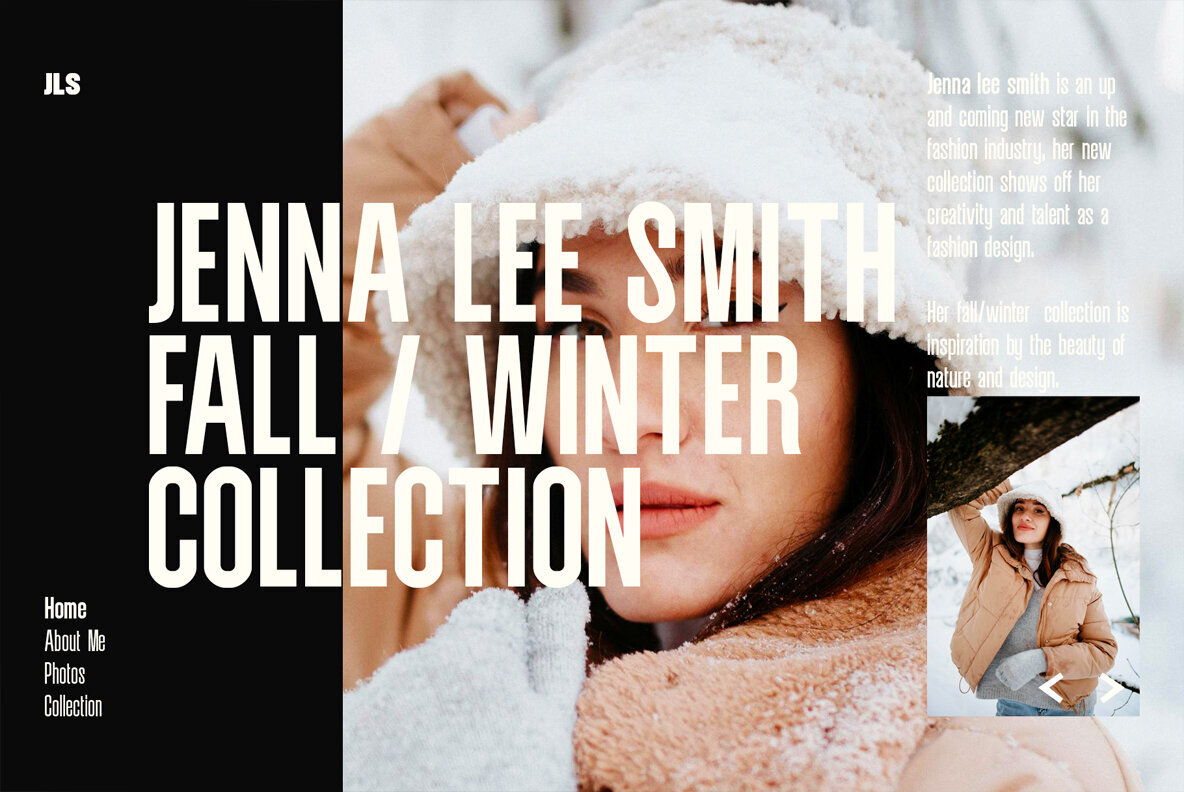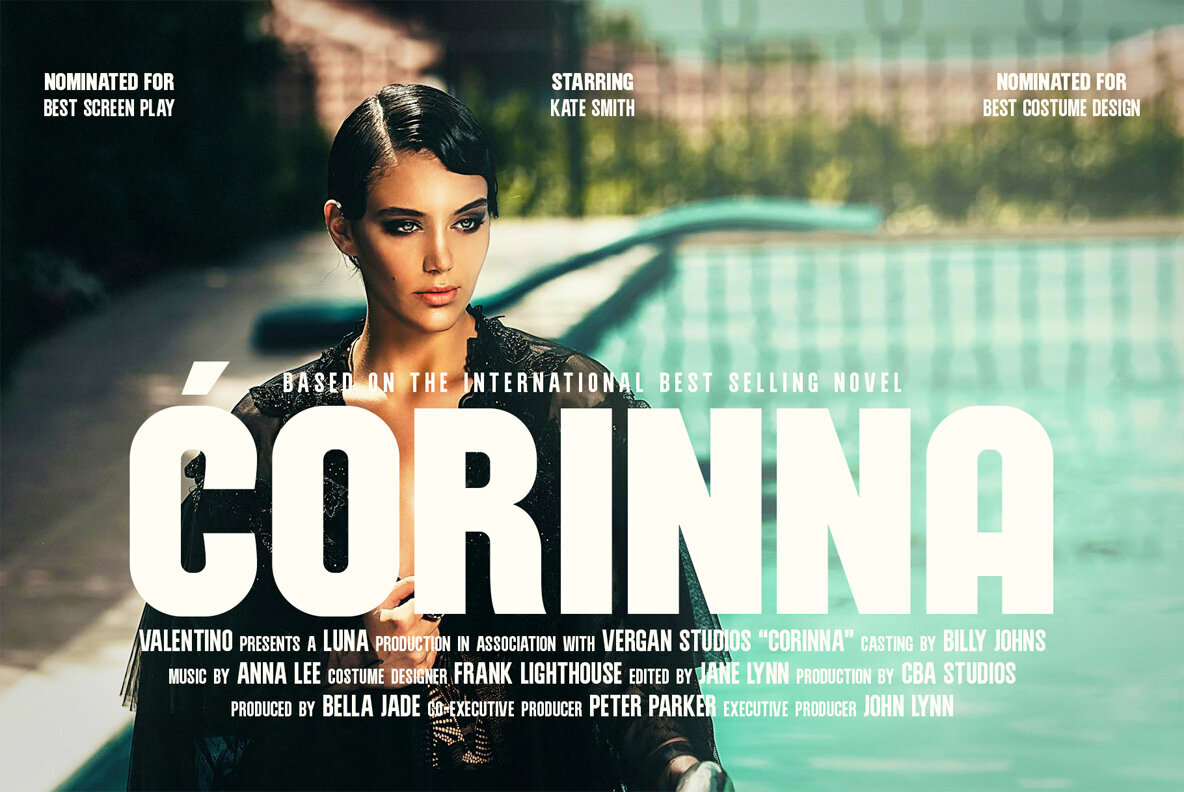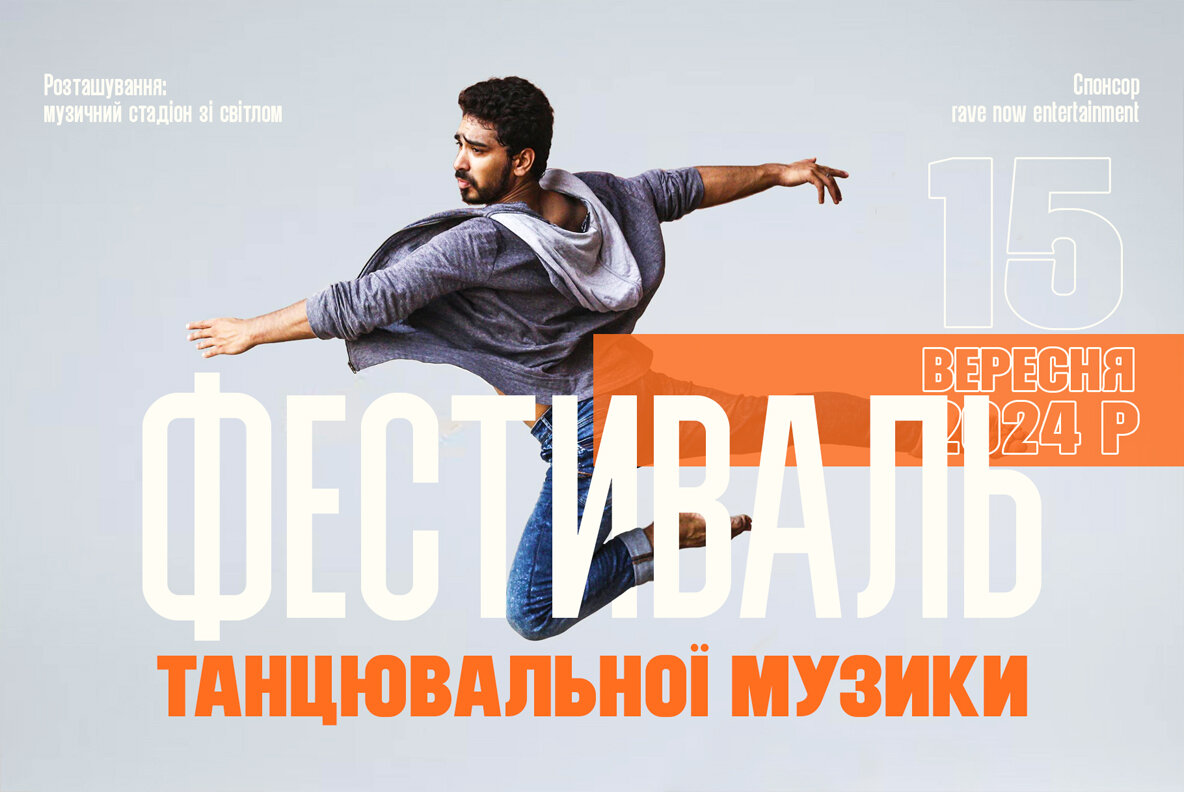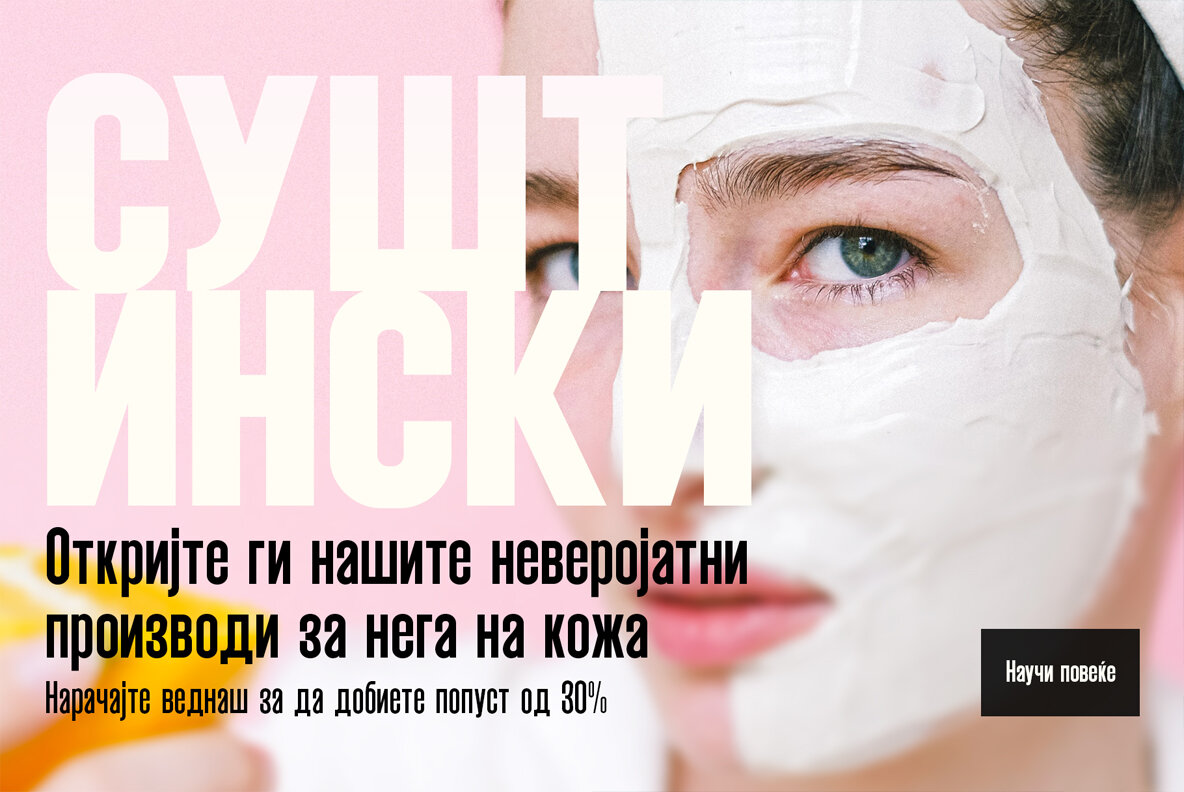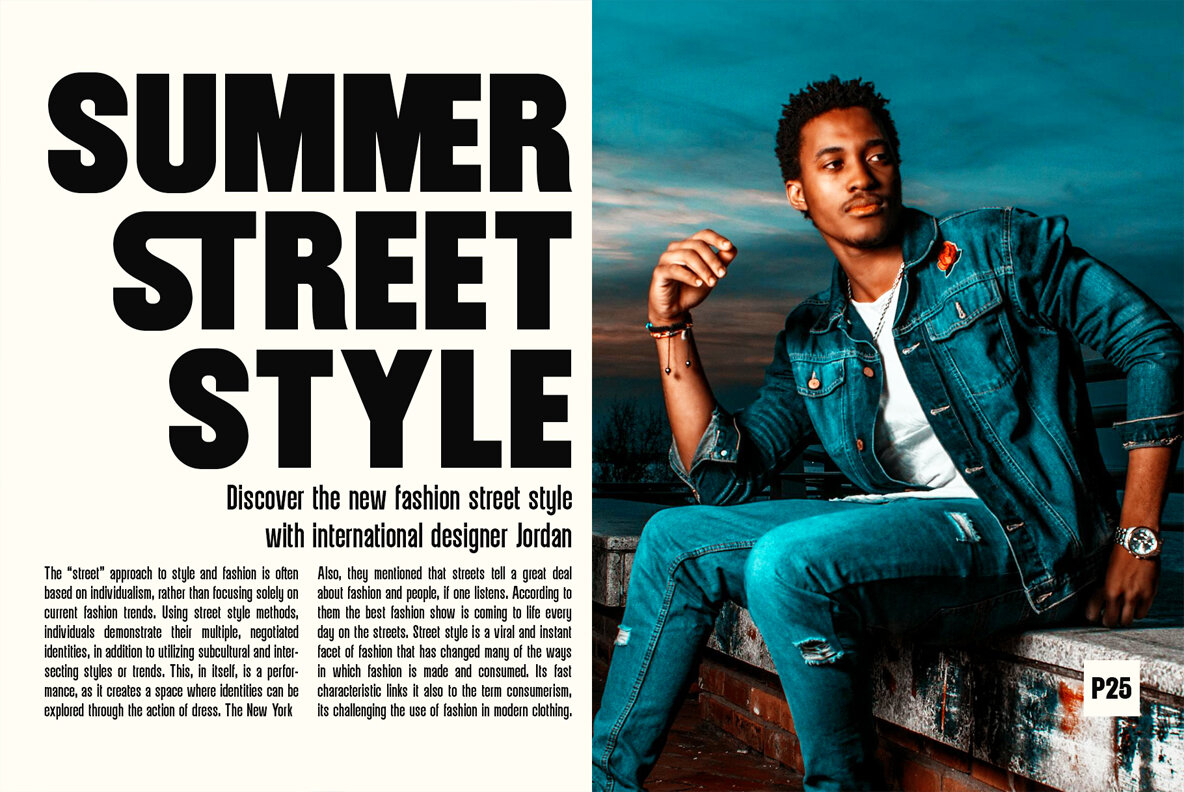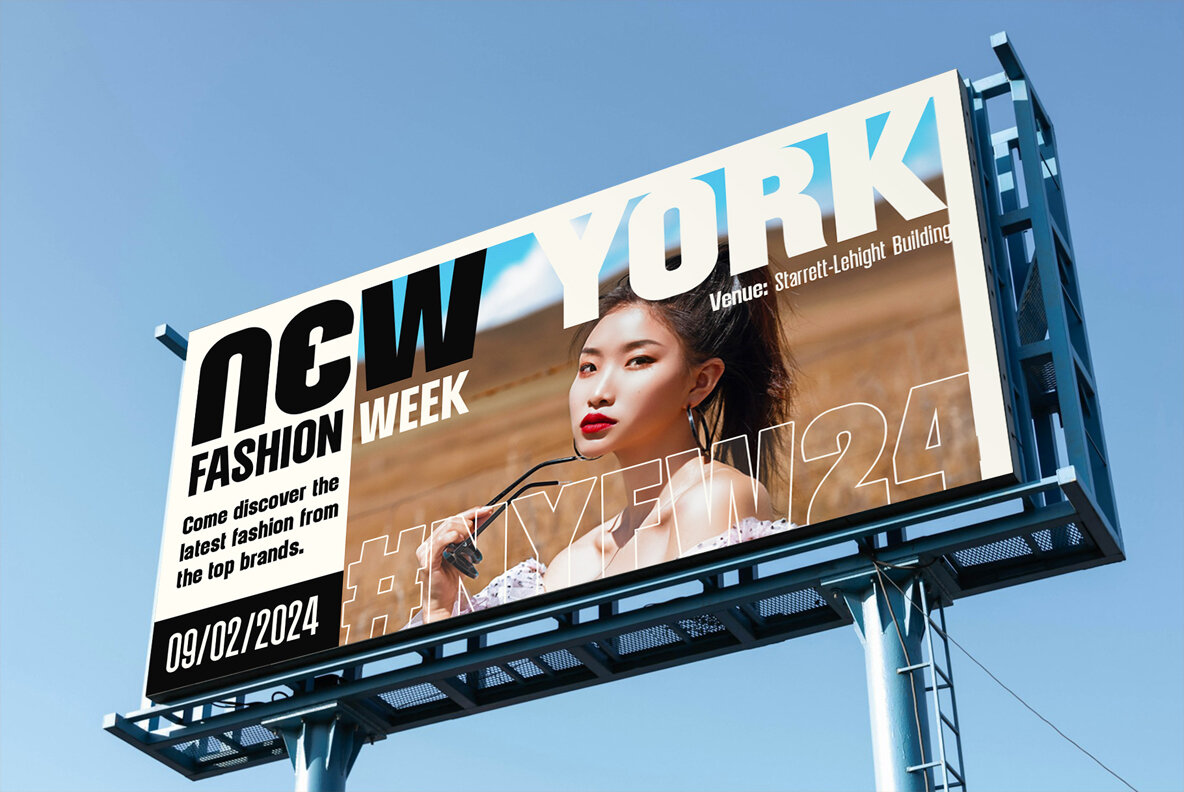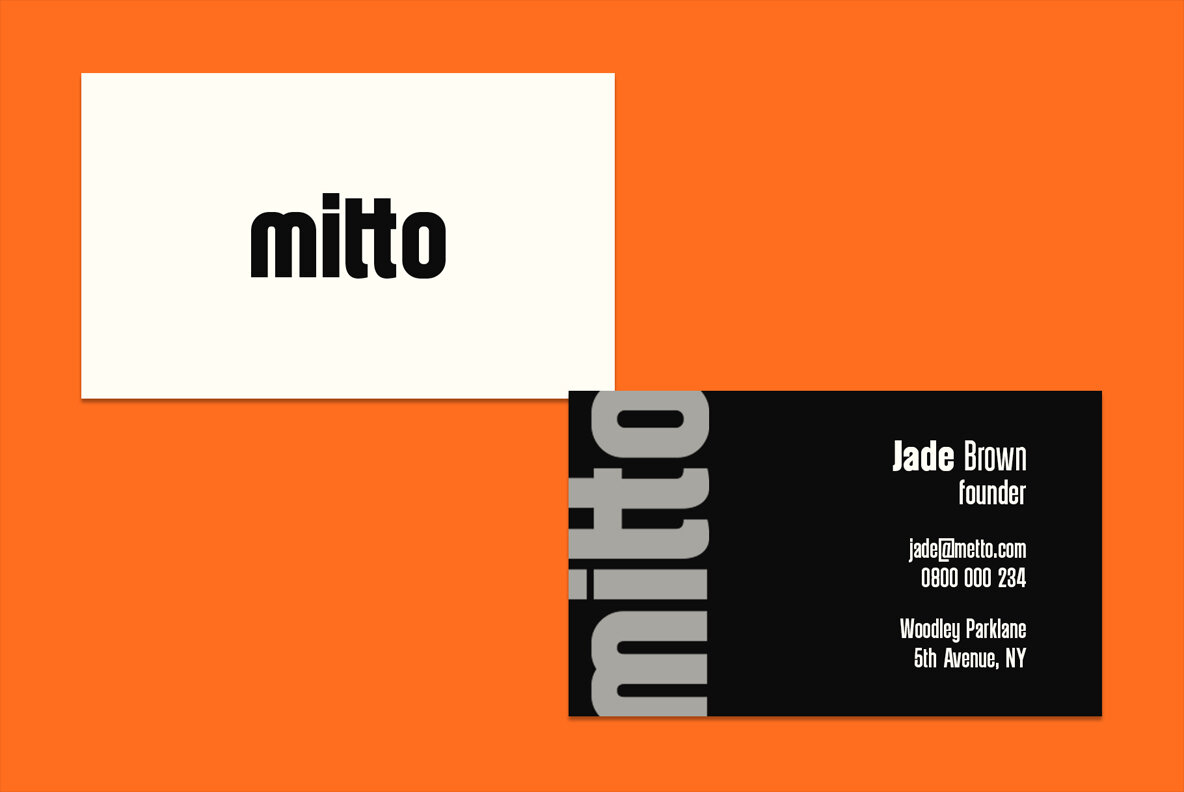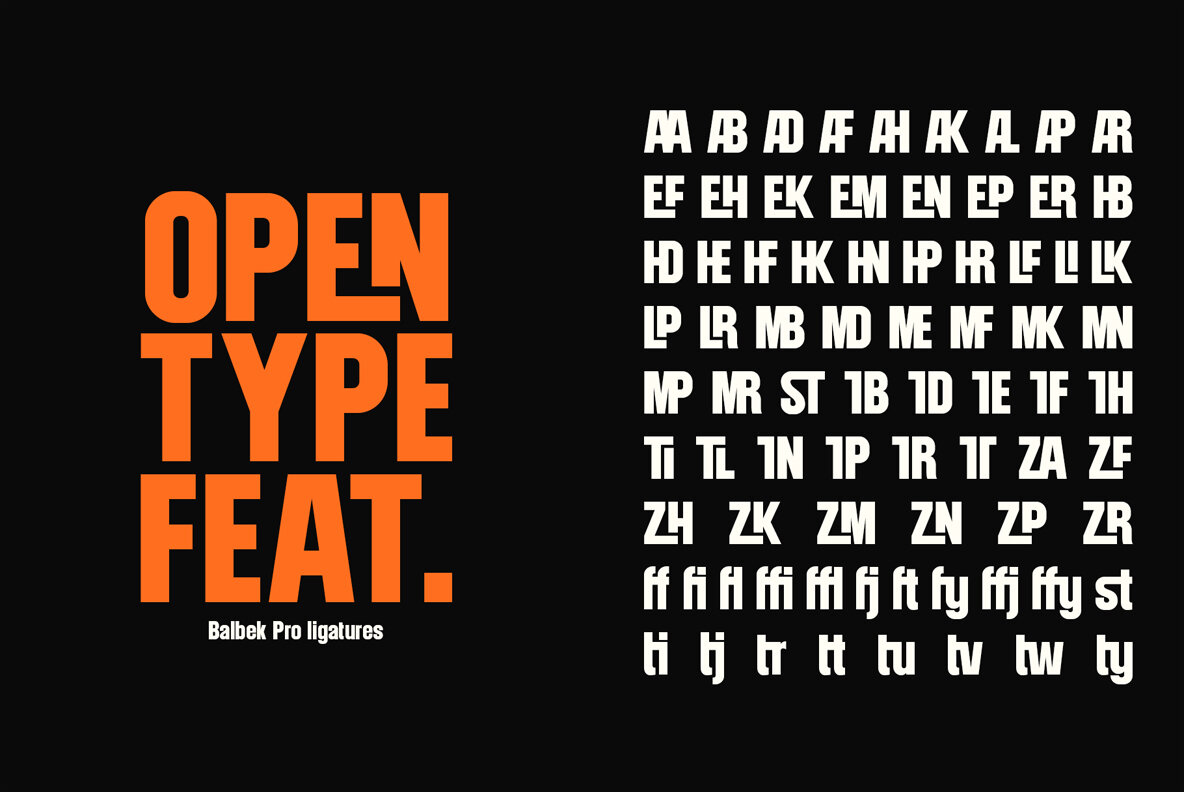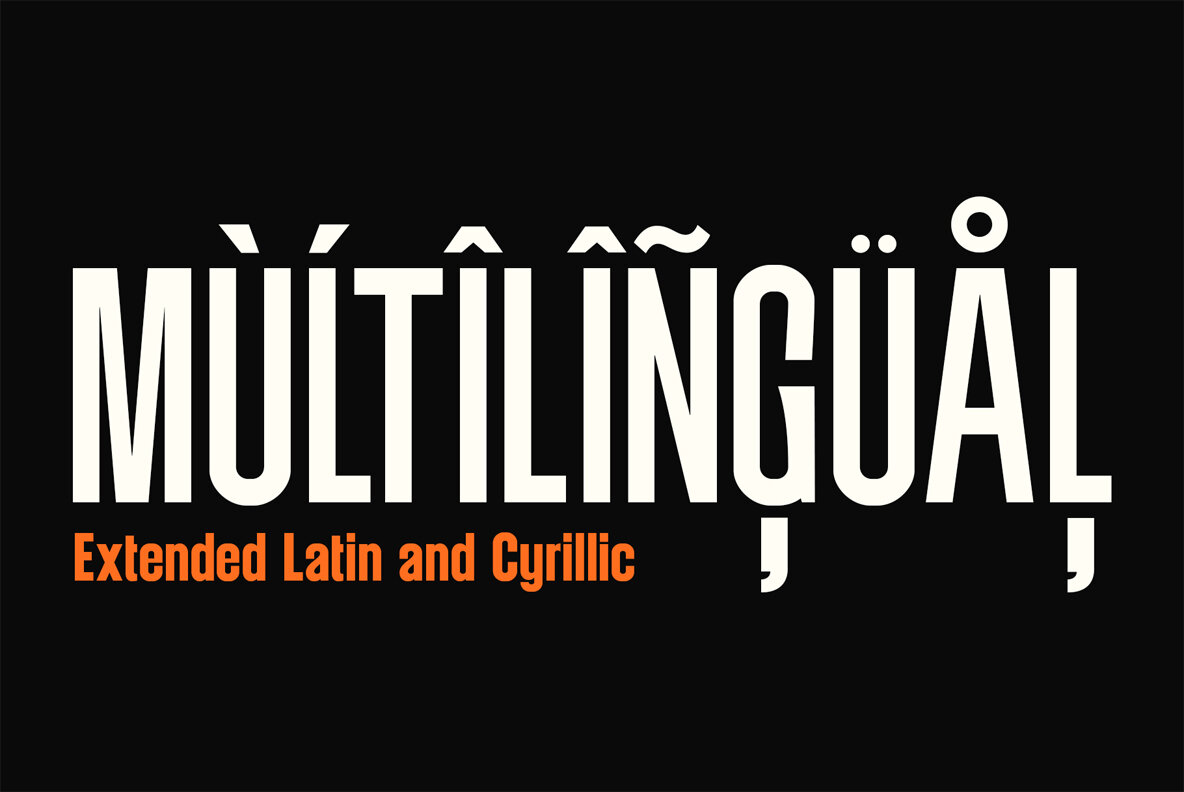
Balbek Pro Font
Balbek Pro is a modern sans serif, it was designed with neutral aesthetic letters that create a natural condensed look. Balbek Pro has an improved design, better legibility and more characters than the original Balbek typeface. The idea behind Balbek Pro was to create an all-purpose display font that would look great in print, posters, graphics and logos. Balbek Pro is an ideal font for designers and agencies that are looking to create beautiful layouts and designs. Balbek Pro comes in 9 weights, each weight has an oblique version. The easy to use variable version of Balbek Pro, gives you the flexibility to manually adjust the fonts weight and slant. Balbek Pro is equipped with a set of powerful OpenType features, this allows you to quickly change between alternate letters or insert ligatures. With its great multilingual support, which includes extended Latin and Cyrillic characters, Balbek Pro can produce a large number of different languages.